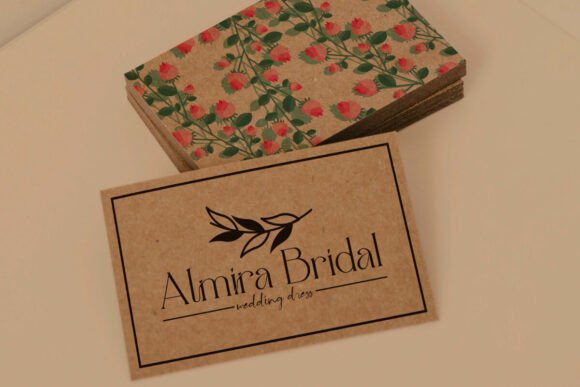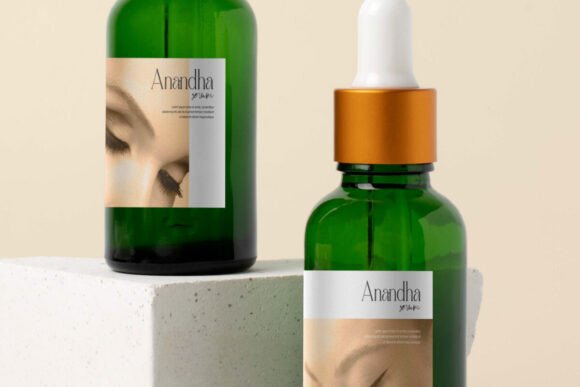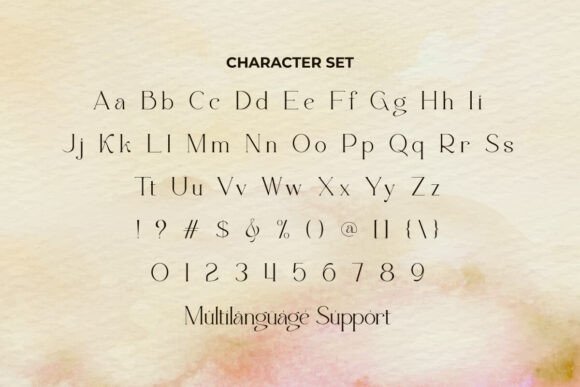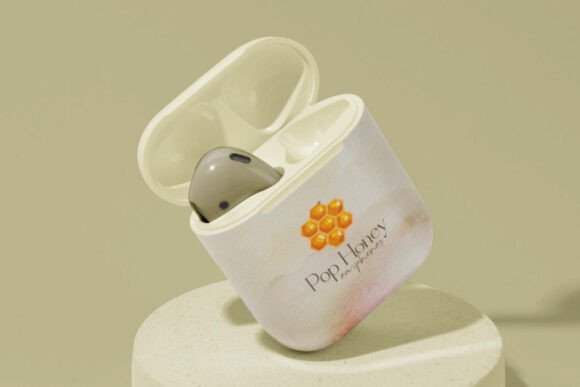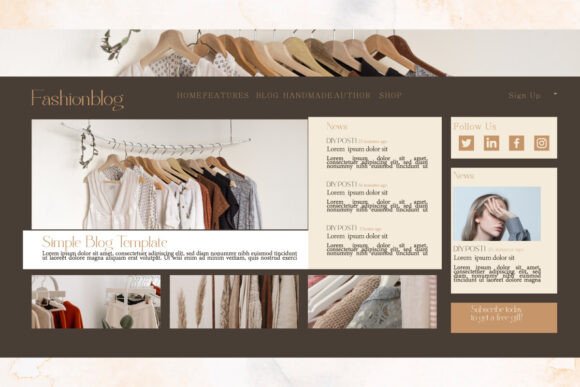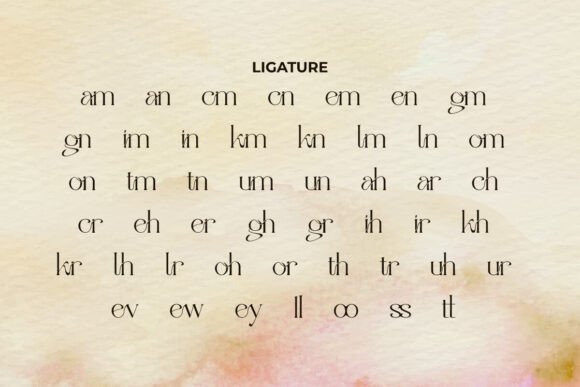
Introducing Brilliant Honey Font: Elevate Your Designs with Sophistication
In the world of typography, a font can make or break a design. For designers and crafters looking to add a touch of elegance and uniqueness to their projects, Brilliant Honey Font is a game-changer. This sophisticated serif display font boasts beautiful ligatures and a distinctive style that sets it apart from the rest.
What Makes Brilliant Honey Font Stand Out?
Brilliant Honey Font combines beautiful thin lines with a unique touch at the end of each letter, creating a visually stunning effect. The font’s design is characterized by its elegant serif details and ligatures, which add a level of sophistication to any design. Whether you’re working on a brand image, business card, catalog, or product packaging, Brilliant Honey Font is sure to make your project stand out.
One of the key benefits of Brilliant Honey Font is its versatility. This font can be used across a wide range of design applications, including:
- Brand image: Create a lasting impression with a sophisticated font that reflects your brand’s personality.
- Business card: Make a statement with a unique and elegant font that sets you apart from the competition.
- Catalog: Add a touch of luxury to your product listings with a font that’s both beautiful and easy to read.
- Cover design: Create a stunning cover for your book, magazine, or brochure with a font that’s sure to grab attention.
- Custom design: Let your creativity shine with a font that can be tailored to fit your unique design needs.
- Invitation: Impress your guests with a beautifully designed invitation that sets the tone for your event.
- Label: Add a touch of elegance to your product labels with a font that’s both stylish and easy to read.
- Product packaging: Make your product stand out on store shelves with a font that’s both sophisticated and eye-catching.
- Quote: Add a touch of inspiration to your quotes with a font that’s both beautiful and thought-provoking.
- Signage: Create stunning signage for your business or event with a font that’s sure to grab attention.
- Stationery: Elevate your stationery with a font that’s both elegant and sophisticated.
- Web design: Add a touch of luxury to your website with a font that’s both beautiful and easy to read.
Why Choose Brilliant Honey Font?
With so many fonts to choose from, why should you choose Brilliant Honey Font? Here are just a few reasons:
- Unique design: Brilliant Honey Font boasts a unique design that’s sure to set you apart from the competition.
- Elegant serif details: The font’s elegant serif details add a level of sophistication to any design.
- Ligatures: The font’s ligatures add a touch of beauty and uniqueness to your designs.
- Versatility: Brilliant Honey Font can be used across a wide range of design applications.
Tips for Using Brilliant Honey Font
To get the most out of Brilliant Honey Font, here are a few tips:
- Use it sparingly: Because of its unique design, Brilliant Honey Font is best used sparingly. Use it to highlight key information or to add a touch of elegance to your design.
- Pair it with a simple font: To create visual interest, pair Brilliant Honey Font with a simple font. This will help to create contrast and make your design more visually appealing.
- Experiment with different sizes: Don’t be afraid to experiment with different sizes of Brilliant Honey Font. This can help to create visual interest and add depth to your design.
Brilliant Honey Font is a sophisticated serif display font that’s sure to elevate your designs. With its unique design, elegant serif details, and ligatures, this font is perfect for designers and crafters looking to add a touch of elegance and sophistication to their projects. Whether you’re working on a brand image, business card, or product packaging, Brilliant Honey Font is a versatile font that’s sure to make your project stand out.